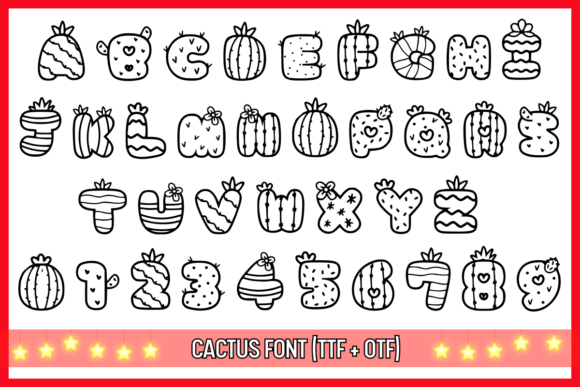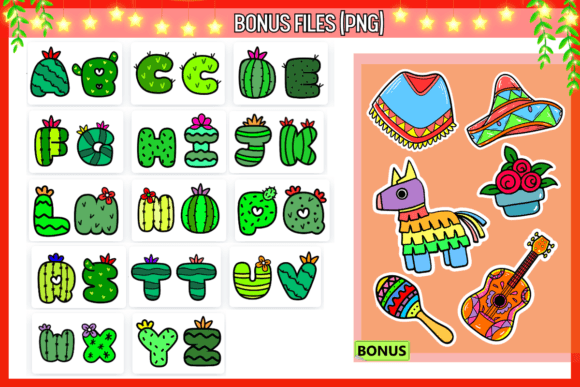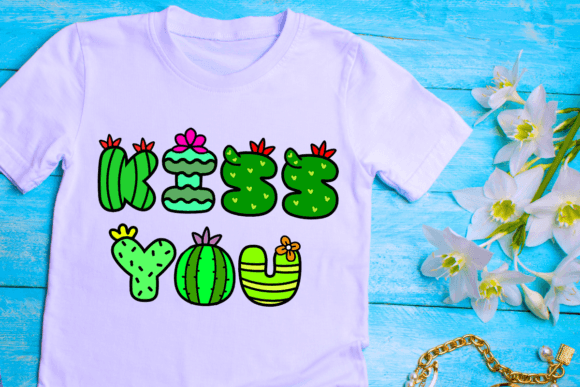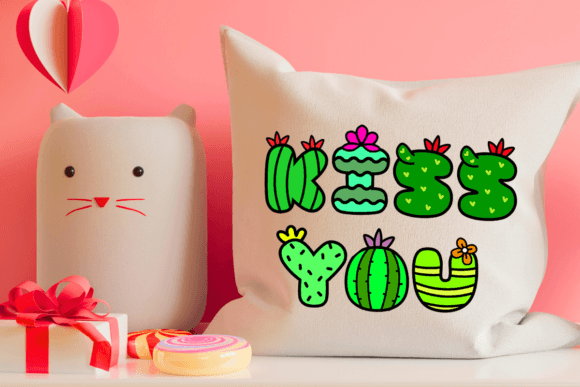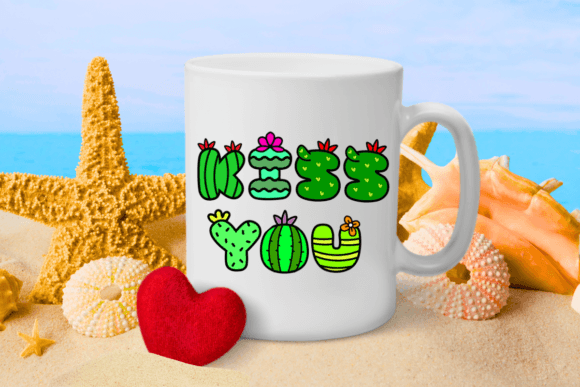
Cactus Font: The Prickly yet Perfect Addition to Your Designs
Are you tired of using the same old fonts in your designs? Look no further than the Cactus Font, a fun and decorative font that’s sure to add a touch of whimsy to your creative projects. As its name suggests, each letter in this unique font is designed to look like a cactus, making it perfect for designers and crafters who want to add a bit of personality to their work.
A Font that’s Prickly and Playful
The Cactus Font is a one-of-a-kind typeface that’s sure to stand out in any design. Each letter is carefully crafted to resemble a cactus, complete with intricate details and a playful charm. Whether you’re designing a logo, a poster, or a social media graphic, this font is sure to add a touch of humor and personality to your work.
Comes with Colorful PNG Images
But what really sets the Cactus Font apart is that it comes with colorful PNG images of each letter. This means that you can use the font to create eye-catching designs that are sure to grab attention. Imagine being able to drop a bright pink or green cactus letter into your design and instantly adding a pop of color and interest. The possibilities are endless!
Perfect for Creative and Eye-Catching Designs
The Cactus Font is perfect for designers and crafters who want to create unique and eye-catching designs. Whether you’re working on a project for a client or just want to create something special for yourself, this font is sure to inspire. Here are just a few ideas to get you started:
- Use the Cactus Font to create a fun and playful logo for a new business or brand.
- Add a touch of personality to your social media graphics with colorful cactus letters.
- Create a one-of-a-kind poster or flyer for a special event or promotion.
- Use the font to design a set of fun and quirky greeting cards or invitations.
Tips for Using the Cactus Font
Here are a few tips for using the Cactus Font in your designs:
- Experiment with different colors and combinations of letters to create unique and eye-catching designs.
- Use the font to add a touch of humor and personality to your designs.
- Don’t be afraid to get creative and try new things – the Cactus Font is all about having fun and being playful!
- Consider pairing the Cactus Font with other fun and decorative fonts to create a truly unique look.
The Cactus Font is a fun and decorative font that’s sure to add a touch of personality to your designs. With its unique cactus-inspired letters and colorful PNG images, it’s the perfect addition to any creative project. Whether you’re a designer, crafter, or just someone who loves to have fun, the Cactus Font is sure to inspire and delight. So why not give it a try and see what amazing designs you can create?
Key Features of Cactus Font
- Unique cactus-inspired letters
- Comes with colorful PNG images of each letter
- Perfect for creative and eye-catching designs
- Fun and playful typeface
- Great for designers, crafters, and anyone who loves to have fun